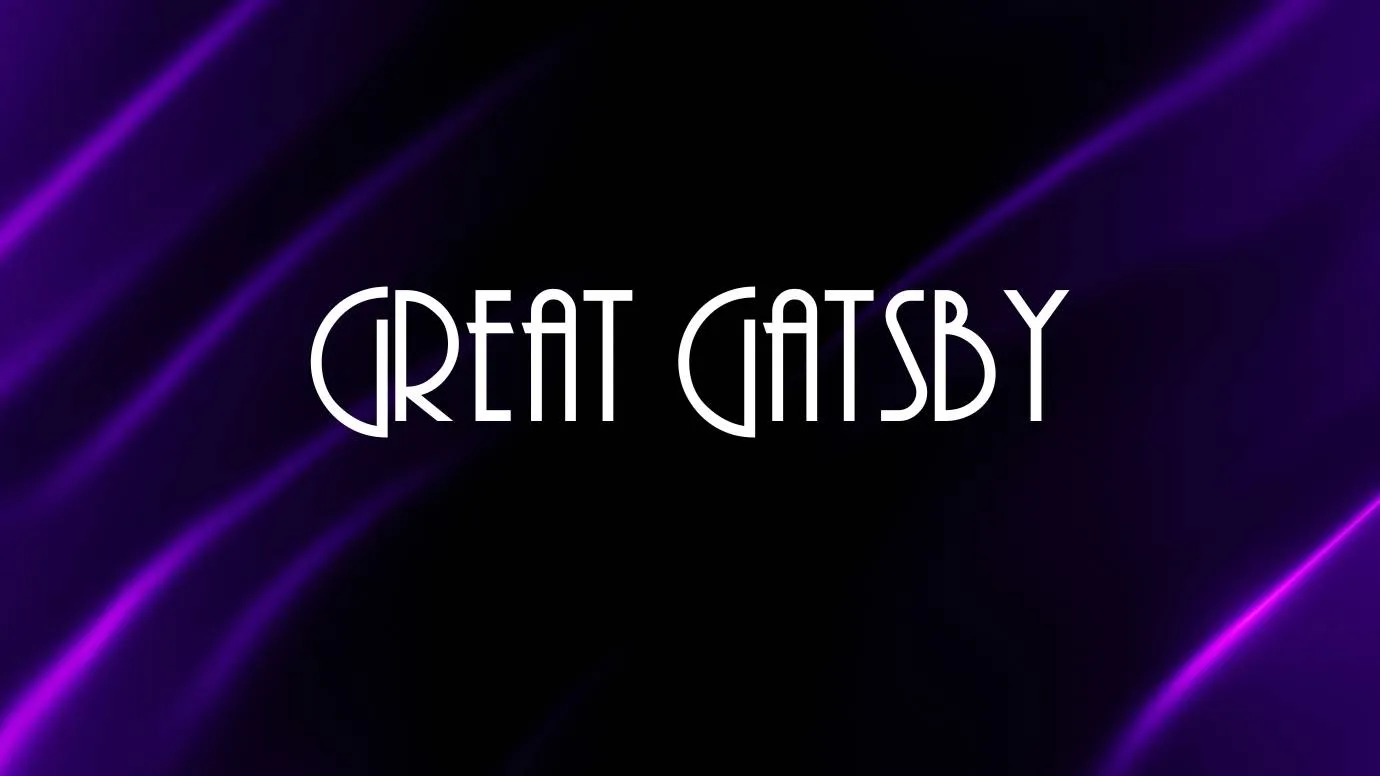
Great Gatsby Font Family is a staggering typeface falls in the category of the gothic family of fonts. Peter Olexa is the main and original designer of this classic font family. The designer of this typeface later released this texture through his foundry Cruzine in the year 2016.
Great Gatsby Font